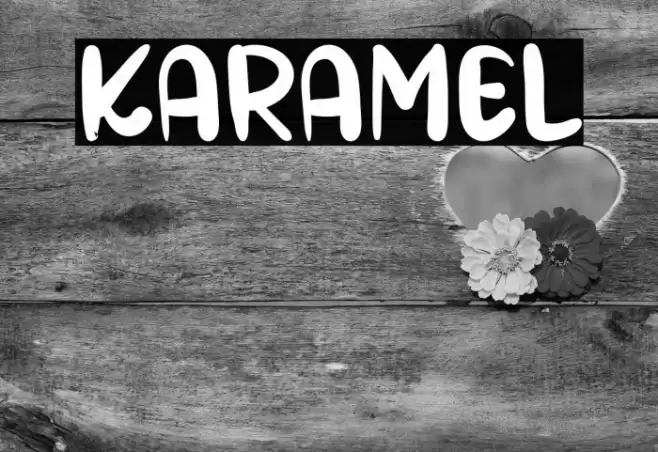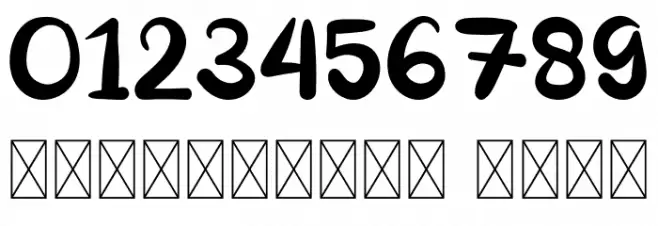
KARAMEL Font
KARAMEL Description
This font features a playful and bold handwritten style, characterized by its thick, rounded strokes and smooth curves. The uppercase and lowercase letters maintain a consistent flow, giving it a casual yet dynamic appearance. The numbers are equally bold and rounded, complementing the overall aesthetic. The font's design is approachable and friendly, making it suitable for projects that require a personal touch. Its unique style stands out, making it ideal for creative and informal applications.
A bold, playful handwritten font with rounded strokes and smooth curves from Comic fonts.
- Proposed Projects: Ideal for greeting cards, children's books, playful branding, and social media graphics.
- Overall Style: Playful
- Use Case: Logos, Headlines, Informal Text